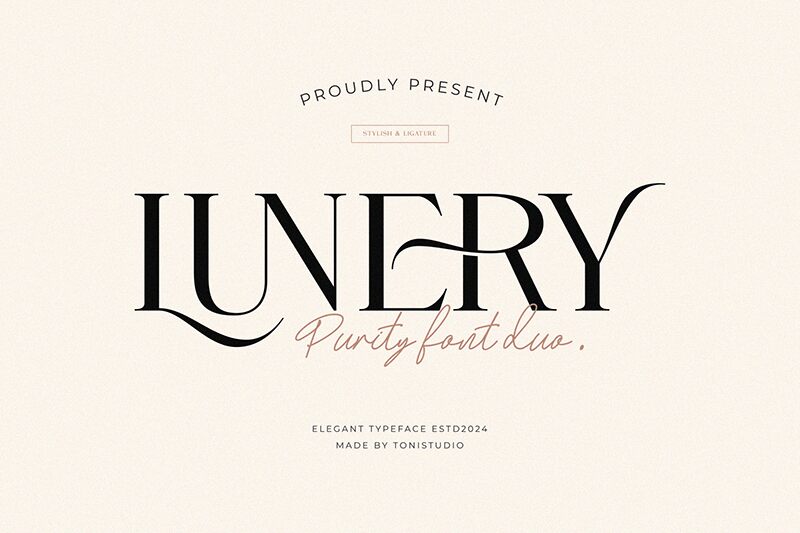
LUNERY
Lunery font by ToniStudio is a free serif font presenting an elegant and sophisticated design. With a stately presence, it finds the balance between classic influences and a modern appeal for a timeless effect with minimal effort.
Lunery is suitable for book covers, logotypes, magazines, advertisements, product labels, banners, social media posts and covers, headers and footers.